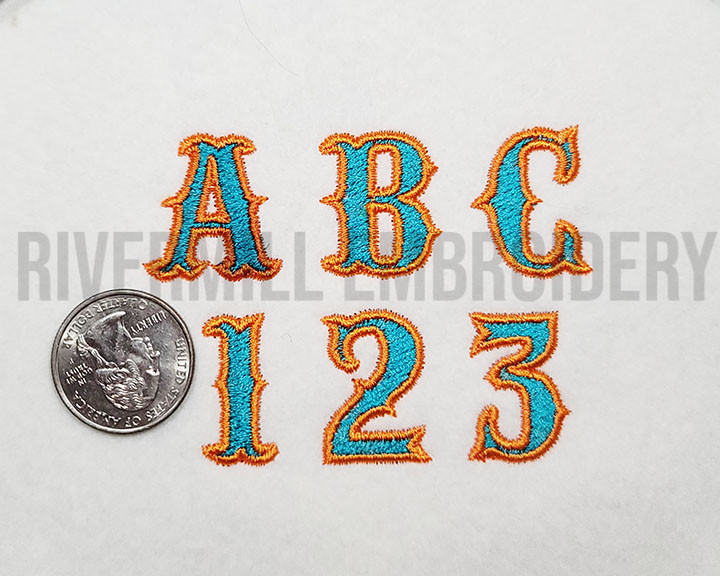
Small Two Color Carnival Machine Embroidery Font Alphabet
This set comes with upper case letters in 3/4", 1, and 1 1/2" size.
Numbers 0-9 are included. Each letter has a satin stitch outline in a different color than the filled area.